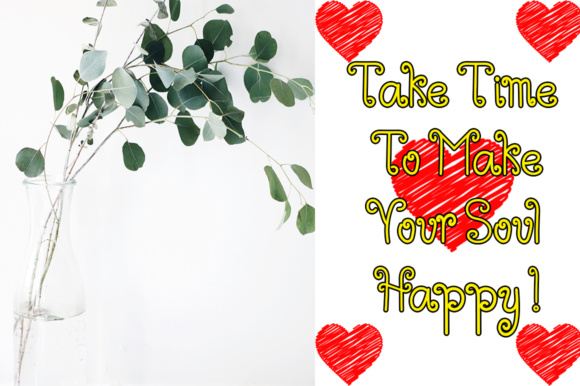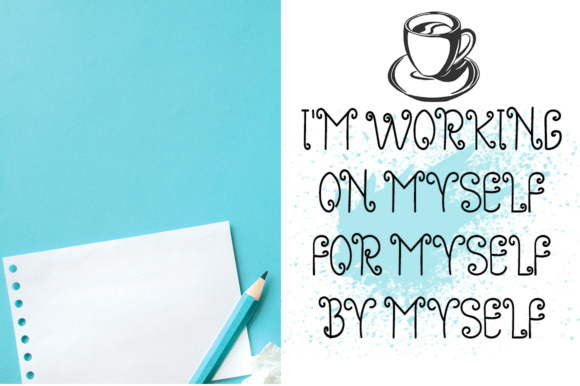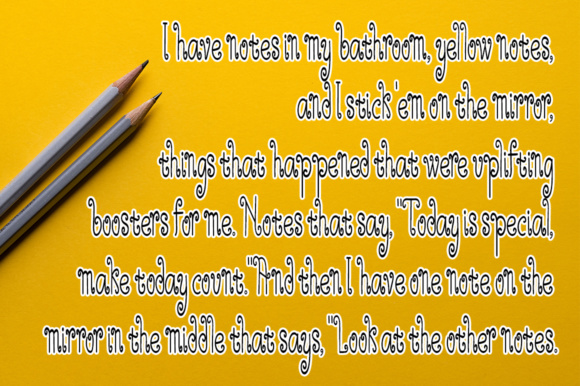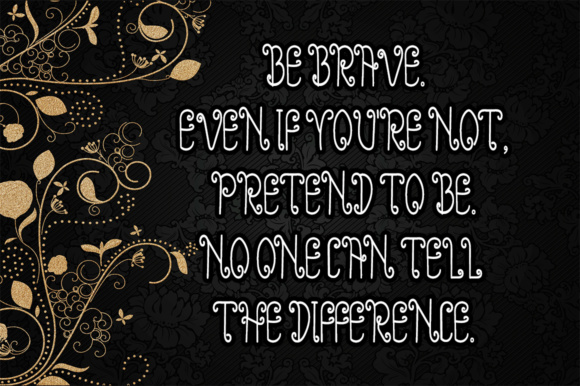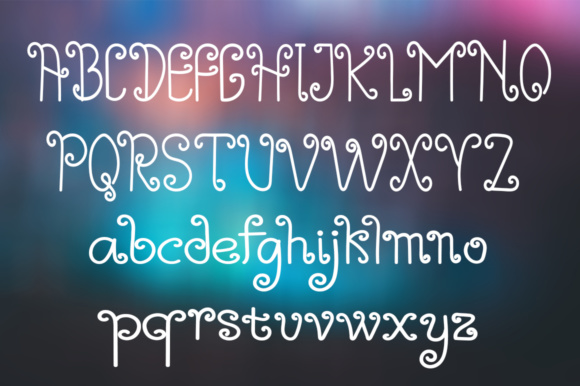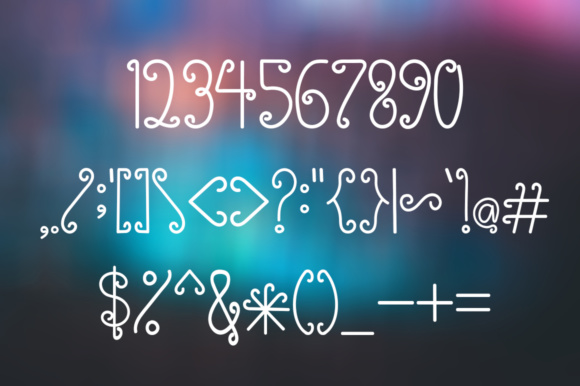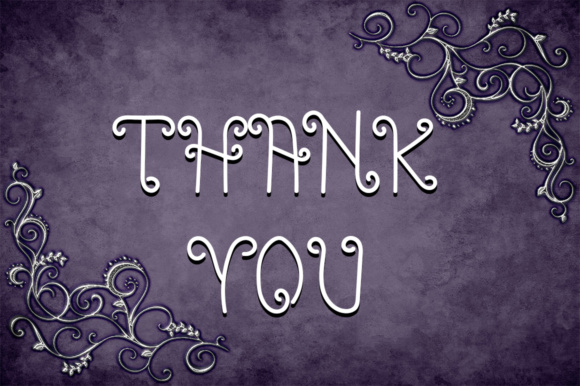
Zarinah Font
About Zarinah Font
Zarinah is an unique, beautiful handwriting font. It has a characteristic style with curved lines on each letter. It’s suitable for various purposes such as greeting cards, invitations, etc.